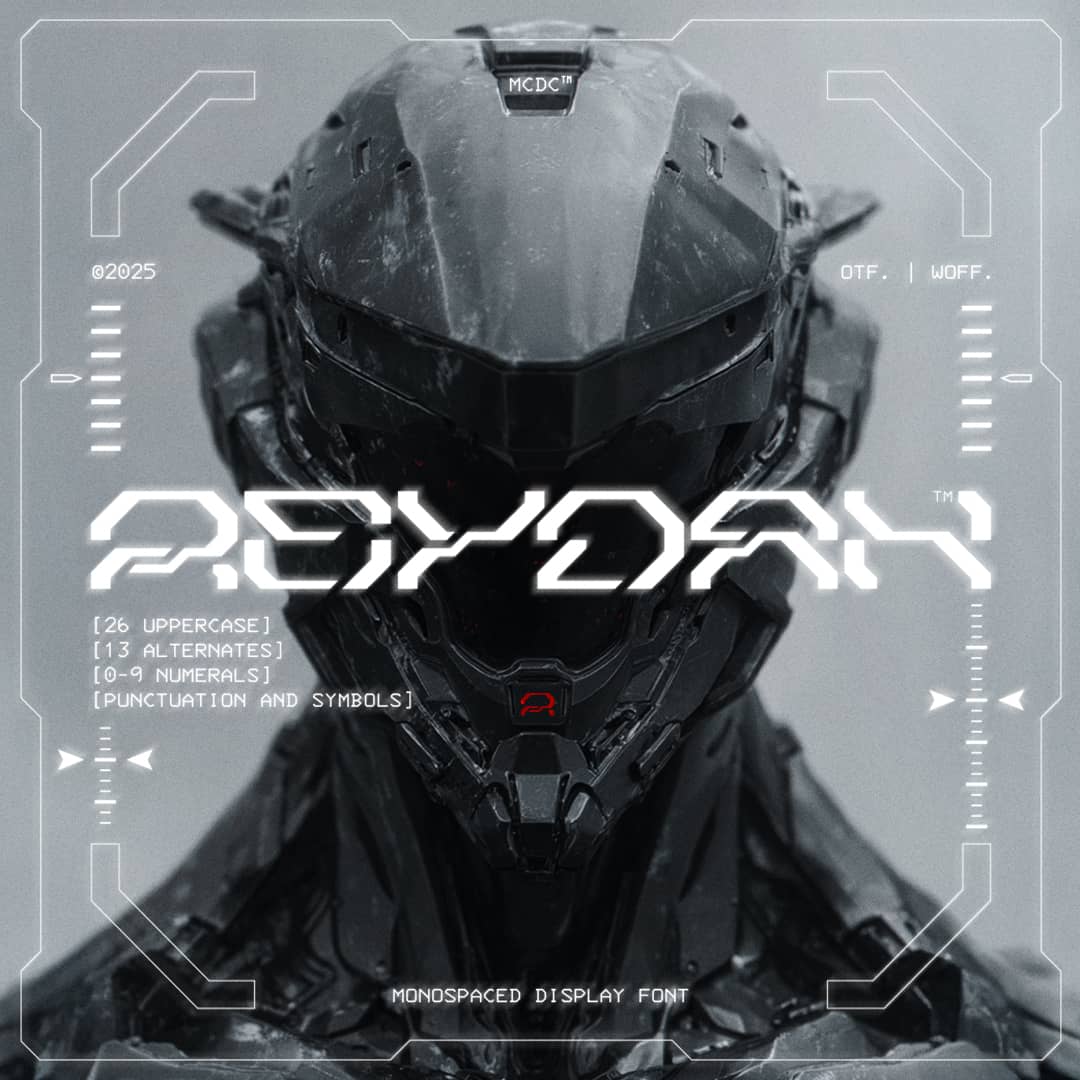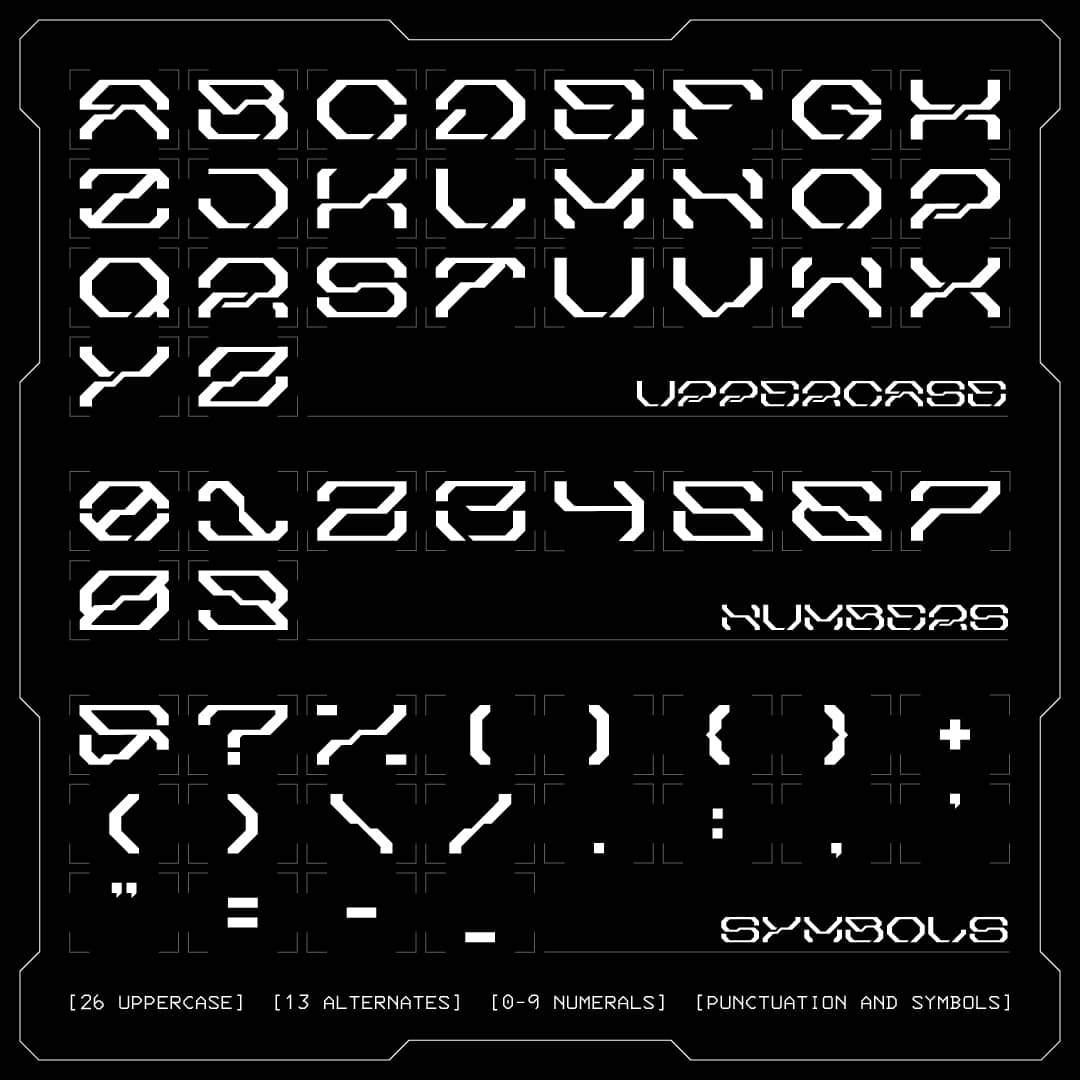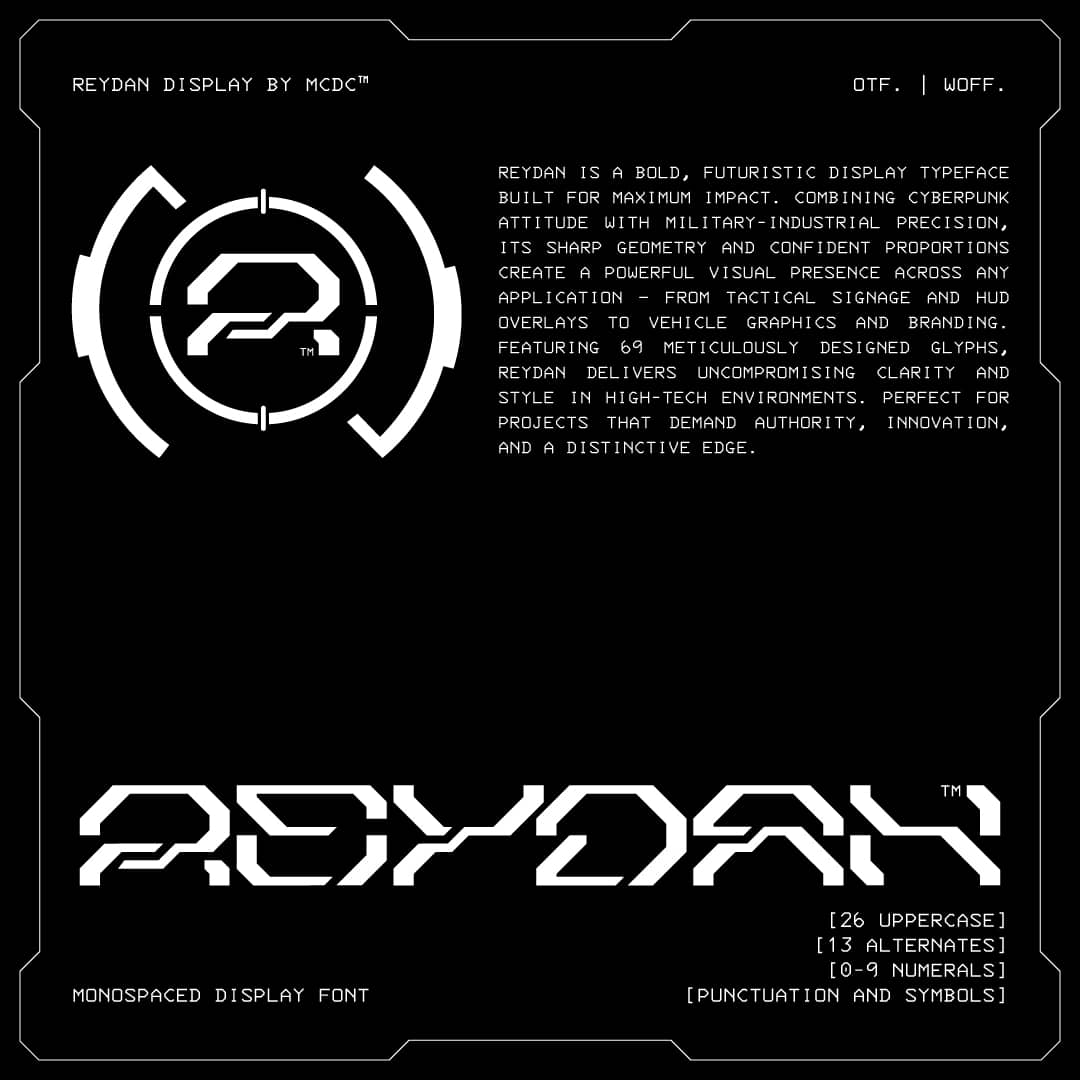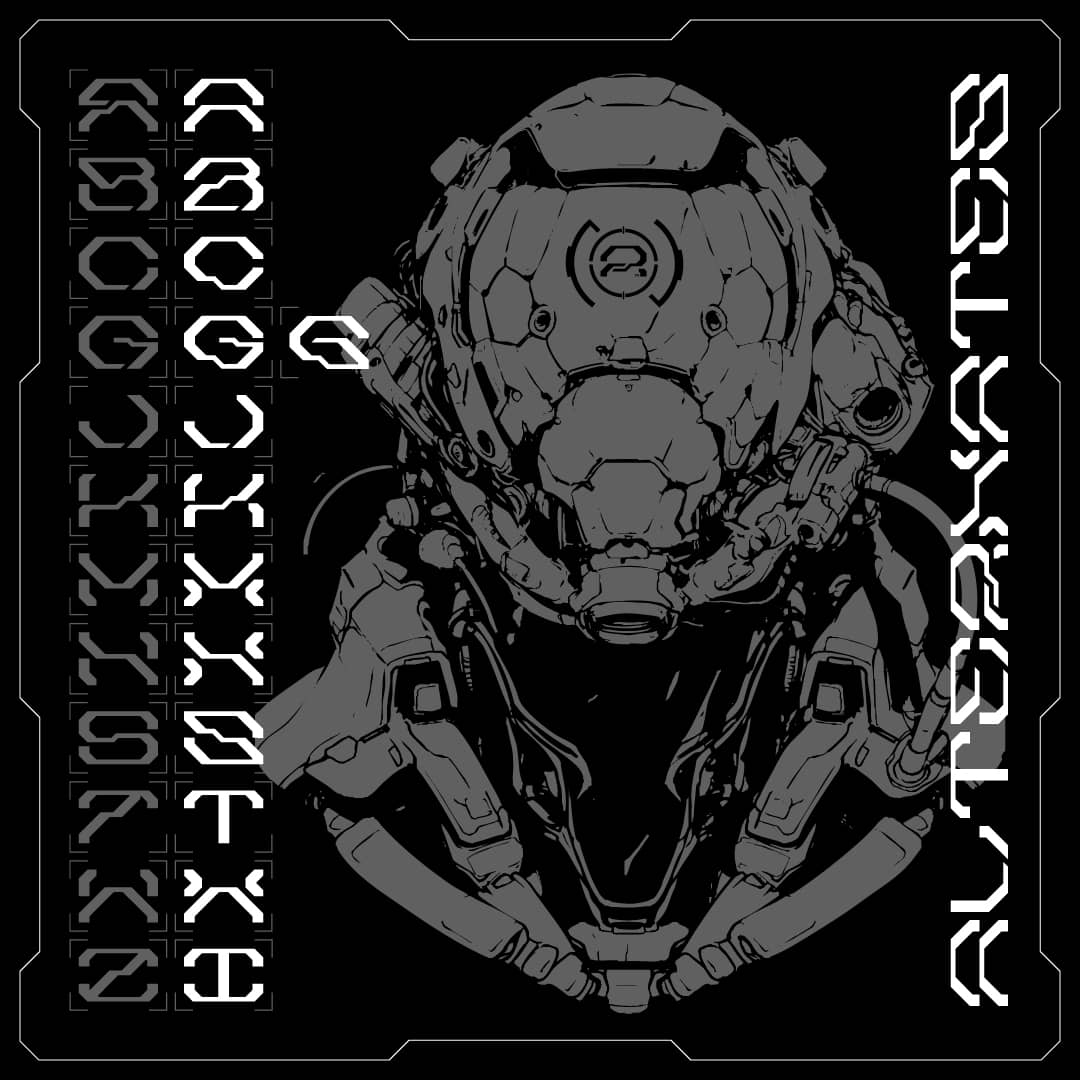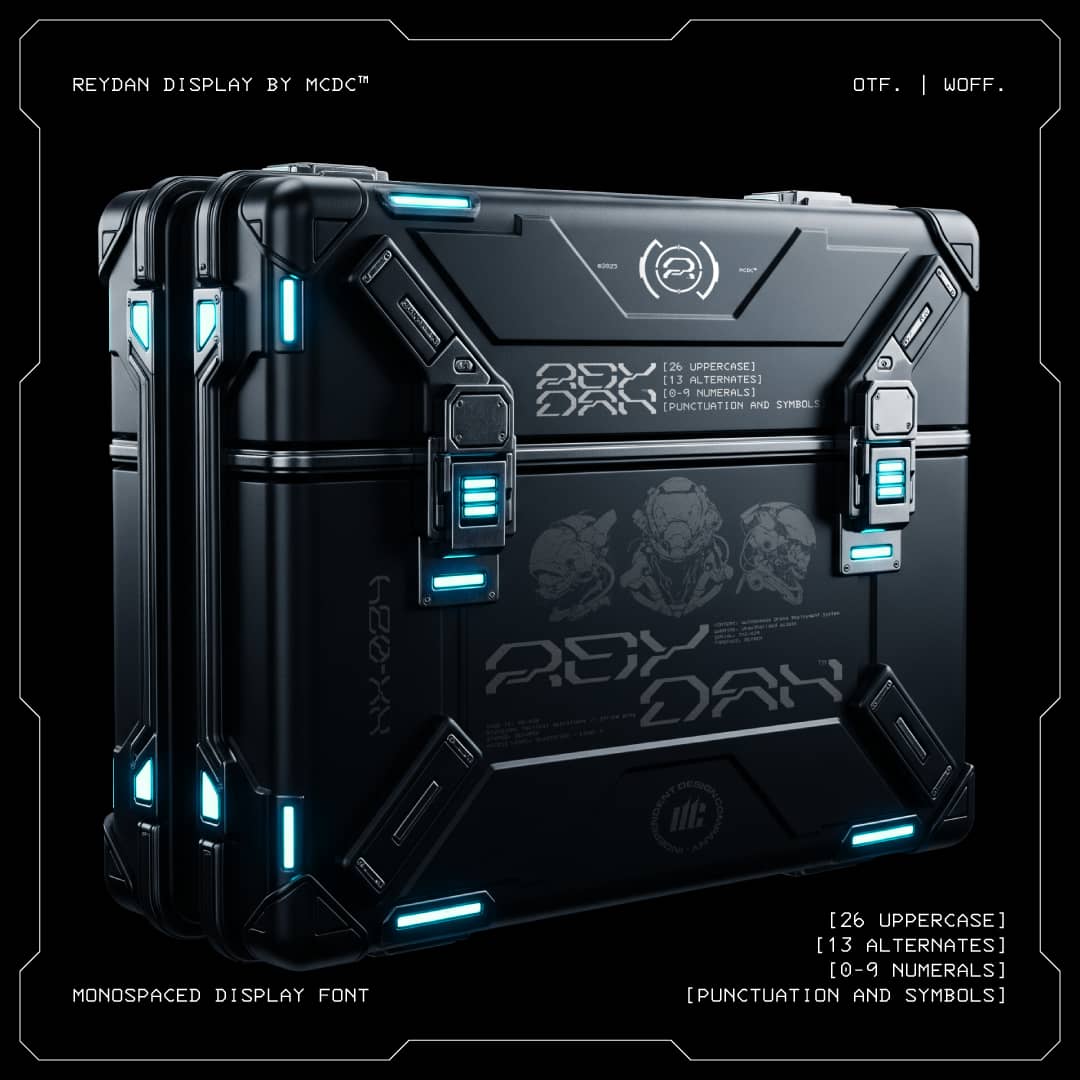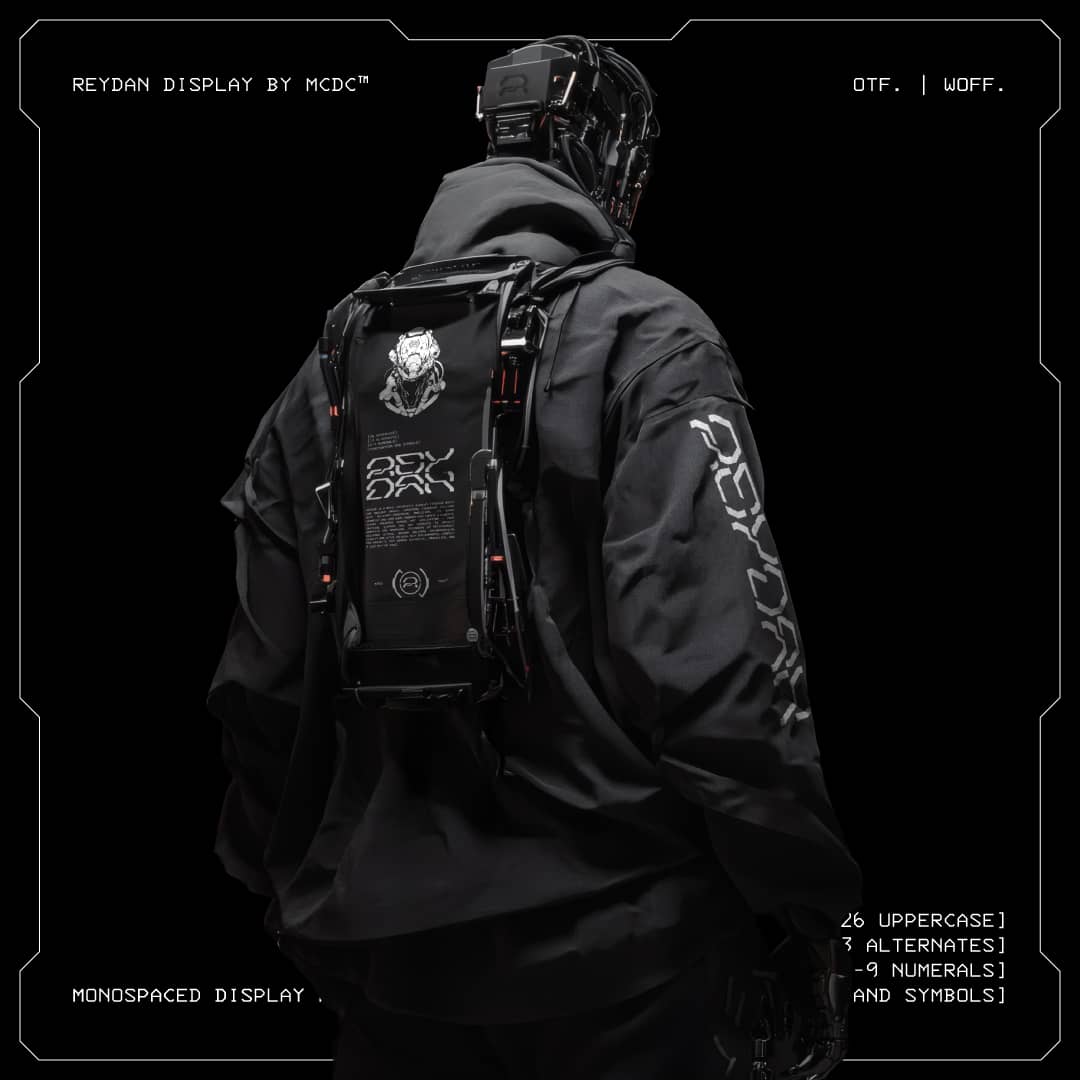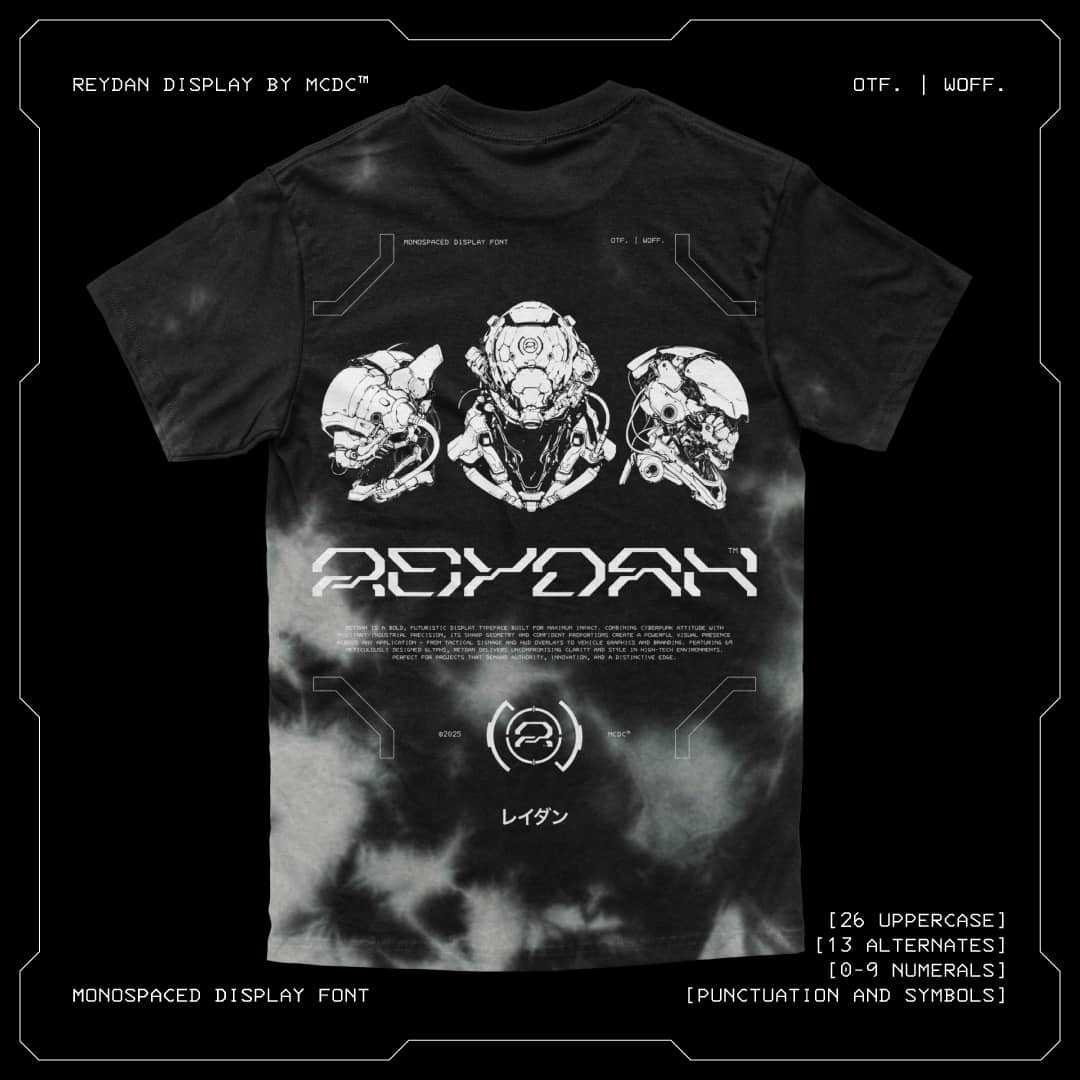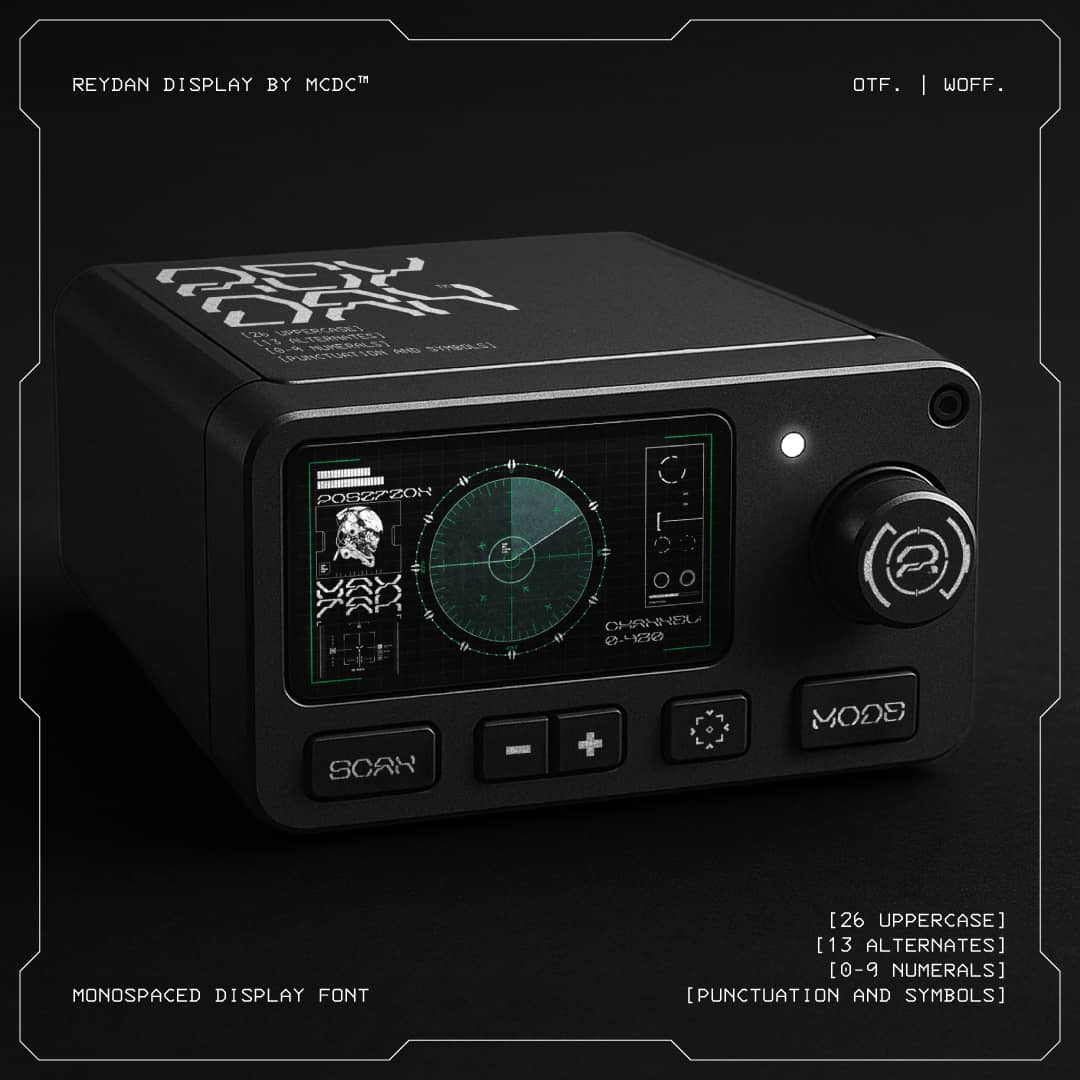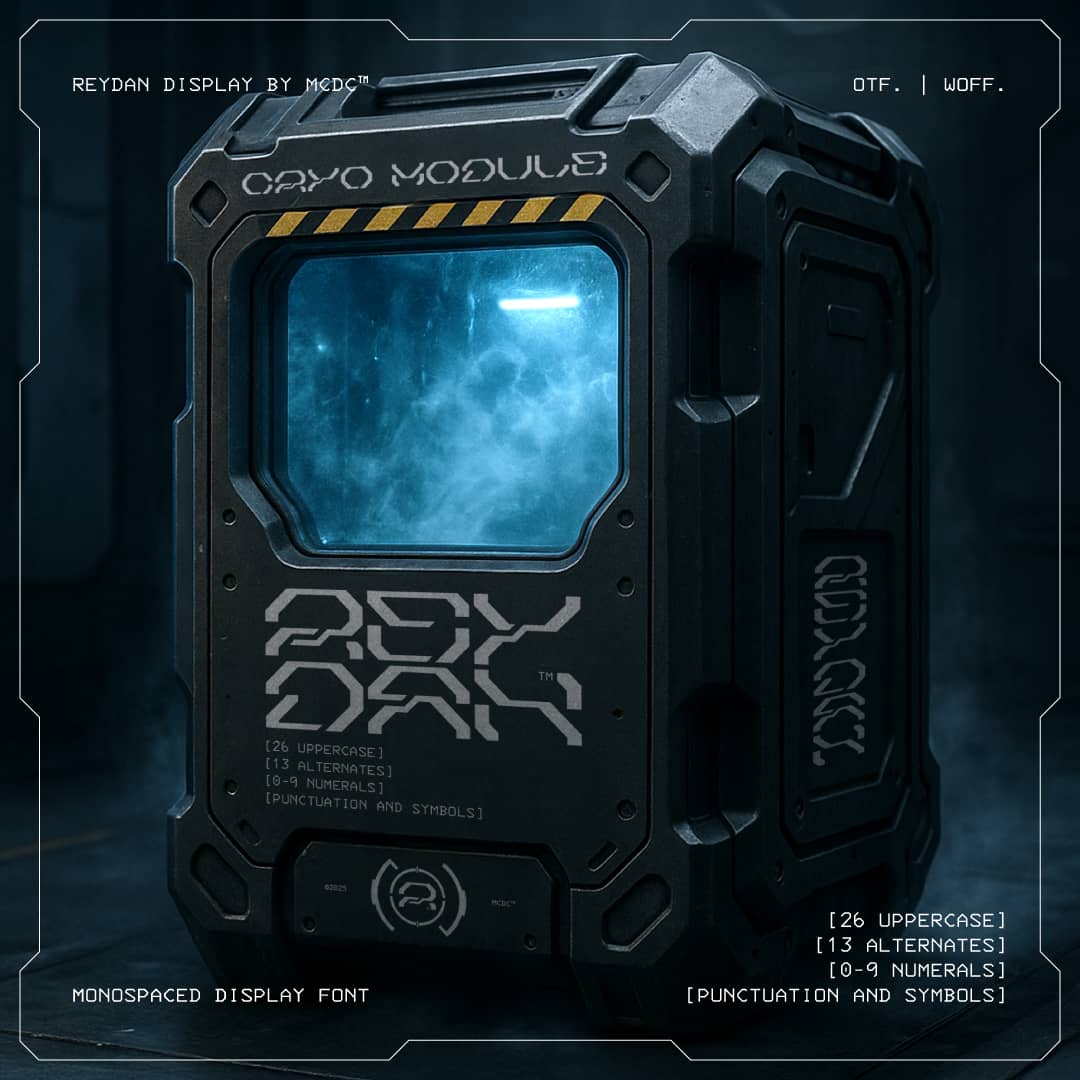
REYDAN
REYDAN is a bold, futuristic display font engineered for high-impact design. Blending cyberpunk aesthetics with military-industrial precision, REYDAN features sharp, geometric letterforms and confident proportions—perfect for commanding attention across tactical signage, HUD interfaces, vehicle graphics, esports branding, and more.